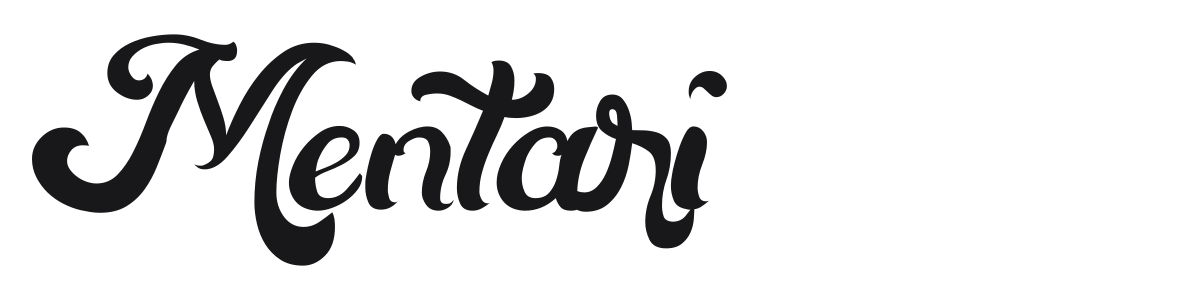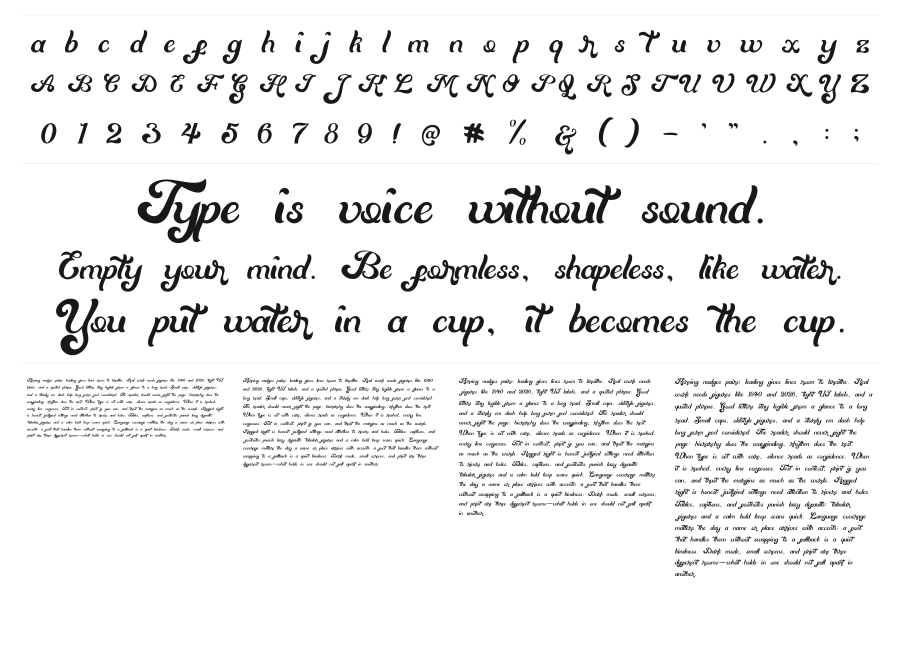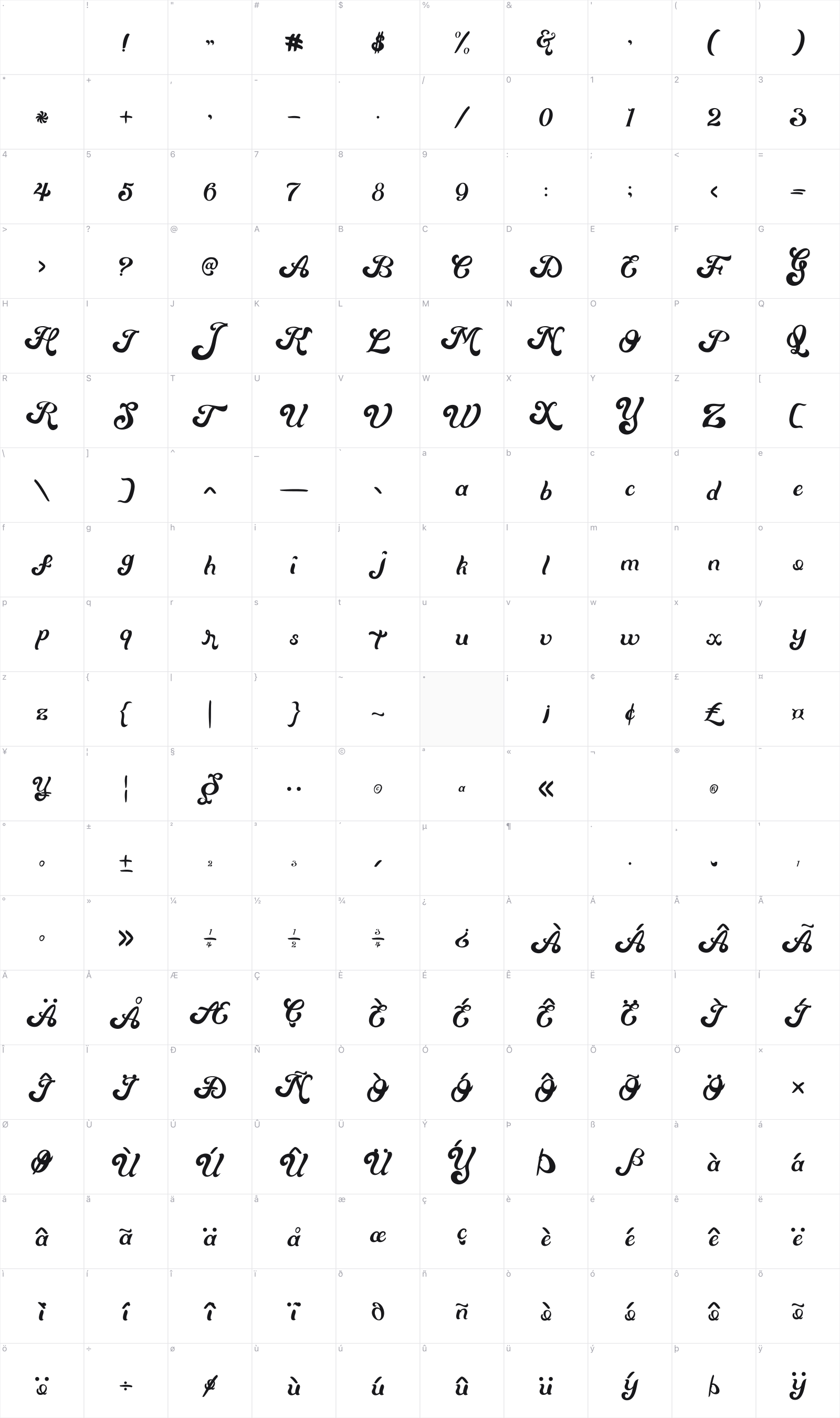
Mentari
Mentari is a bold casual script with thick, rounded strokes and an exuberant connected flow. The letters bounce with personality, pulling from mid-century brush lettering traditions while feeling thoroughly contemporary. It brings warmth and energy to logos, packaging, and any headline that needs a handcrafted touch.